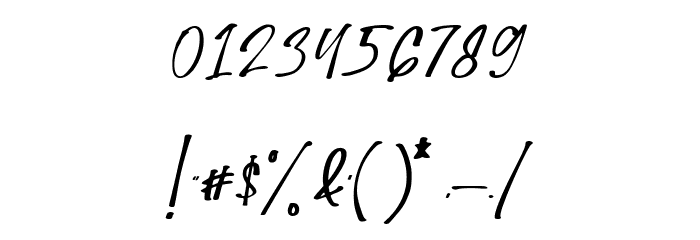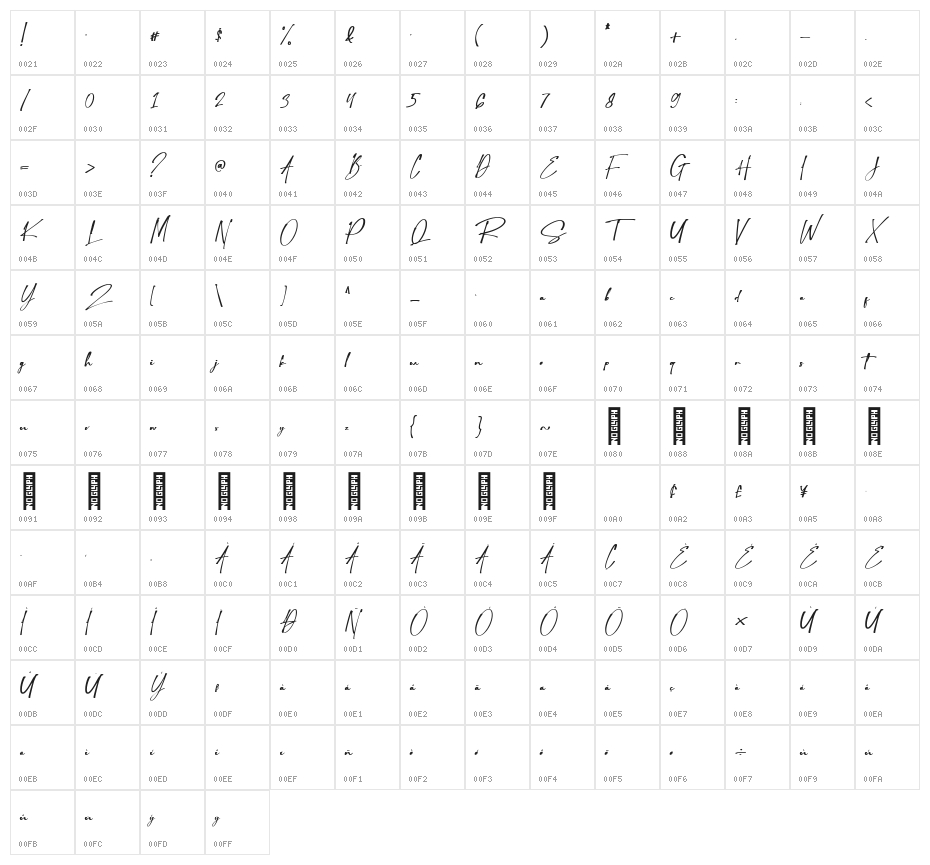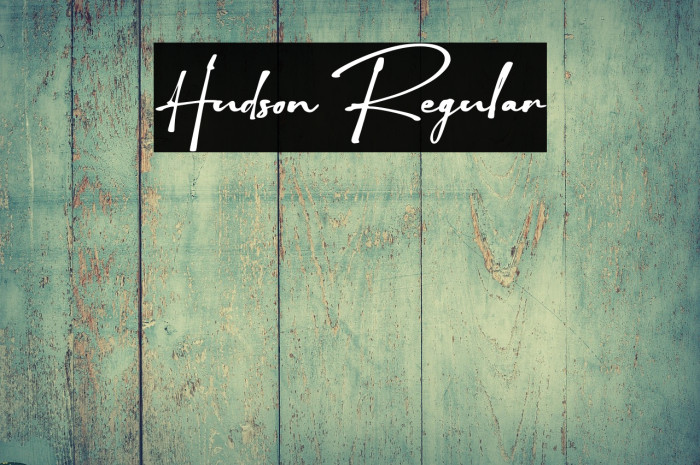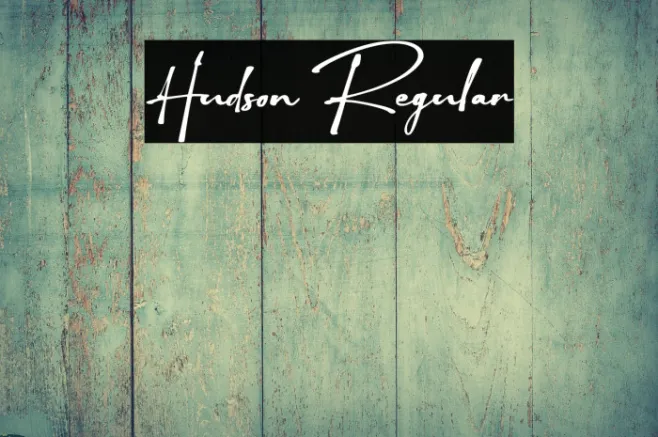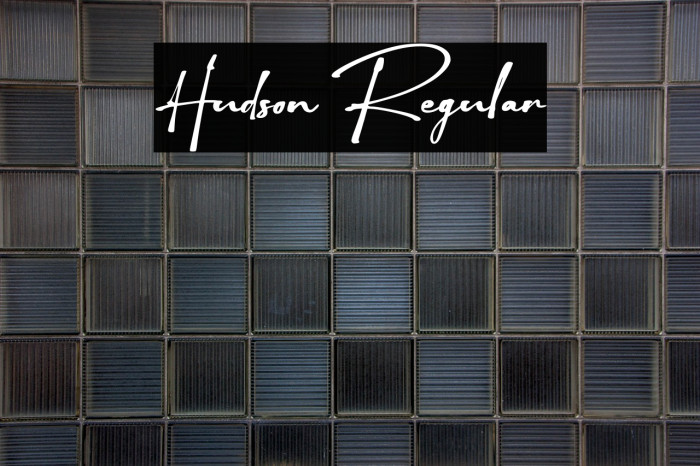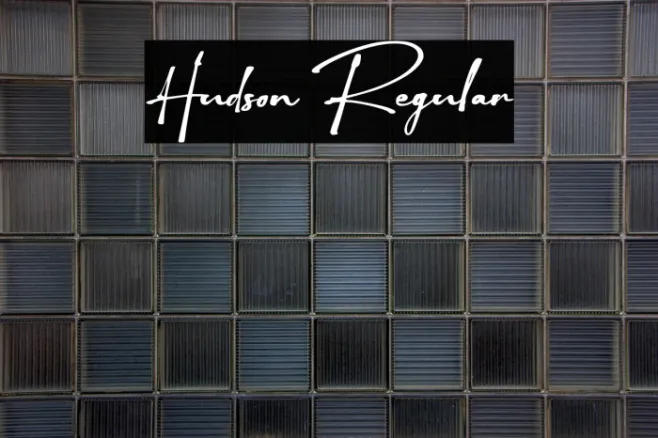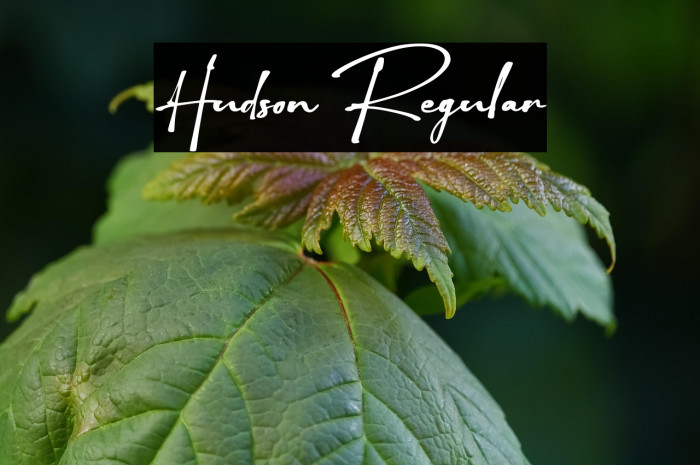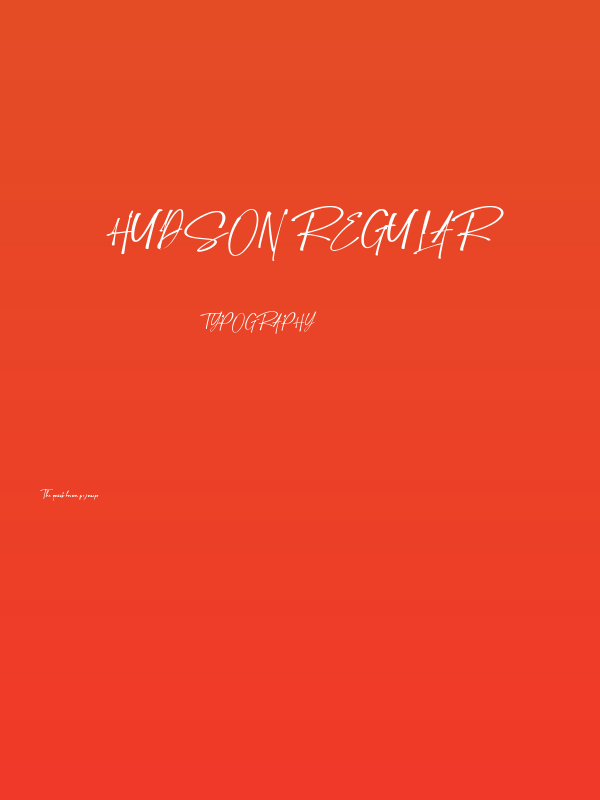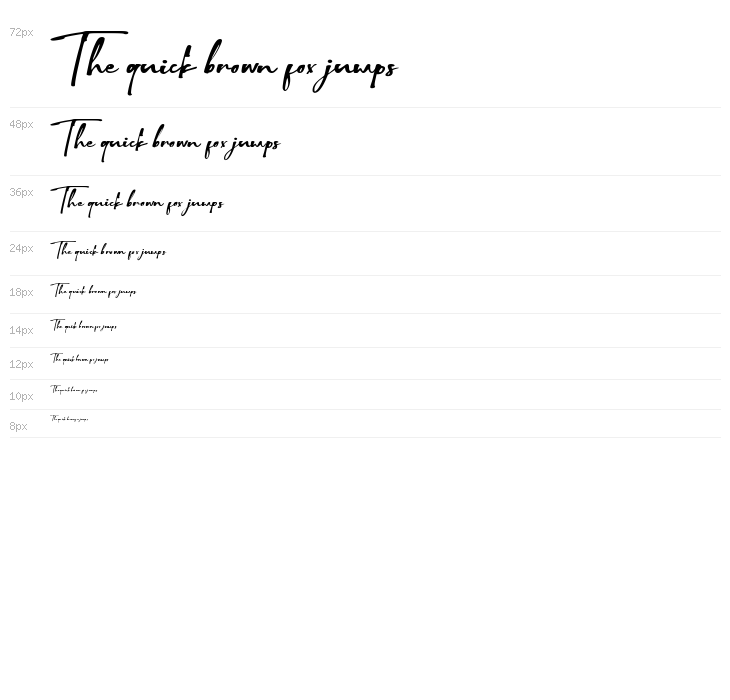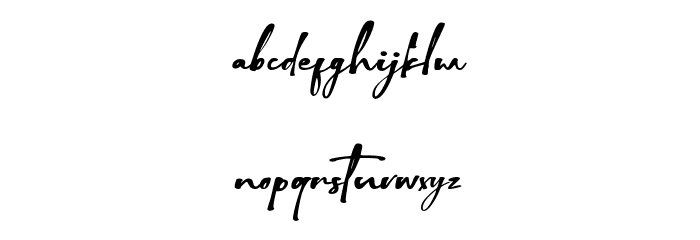
Hudson Regular Font
Hudson Regular Description
This font features an elegant and flowing script style, characterized by its smooth, cursive strokes and a handwritten appearance. The uppercase letters are bold and dynamic, with a slight slant that adds a sense of motion and grace. The lowercase letters maintain a consistent flow, enhancing readability while preserving the artistic flair. Numbers and special characters are designed to complement the overall aesthetic, ensuring a cohesive look across all text elements. The font's design is both sophisticated and approachable, making it suitable for a variety of creative applications.